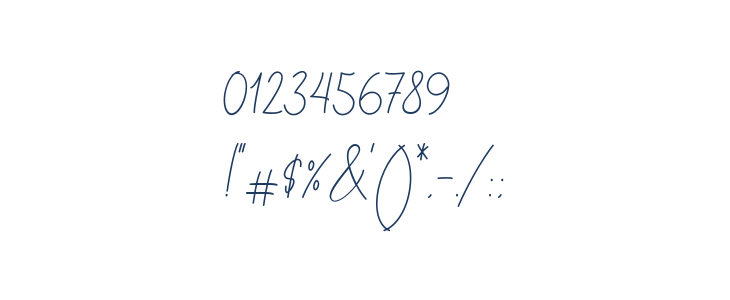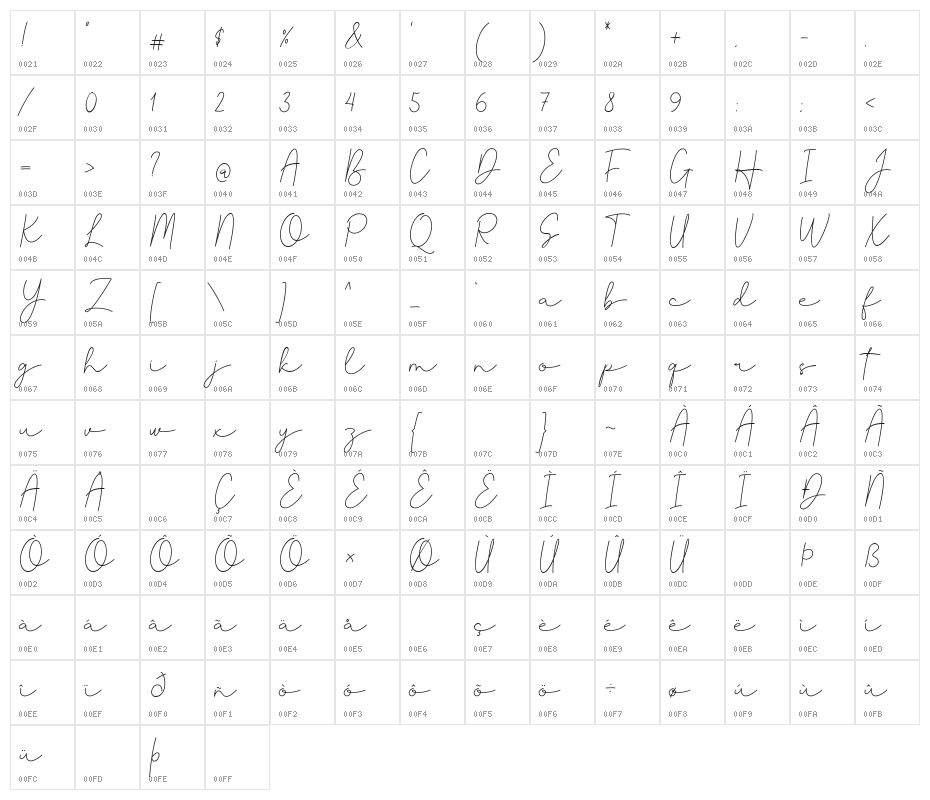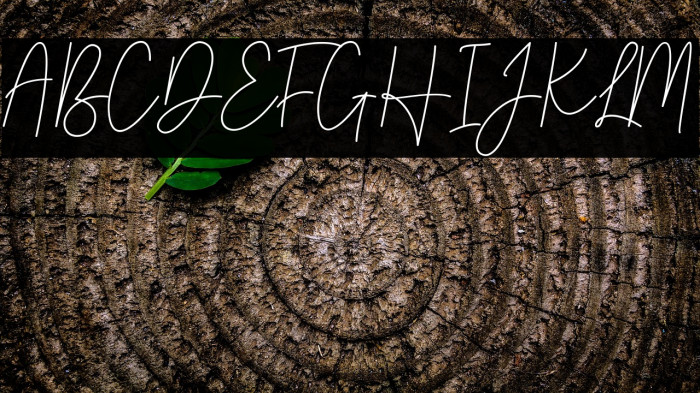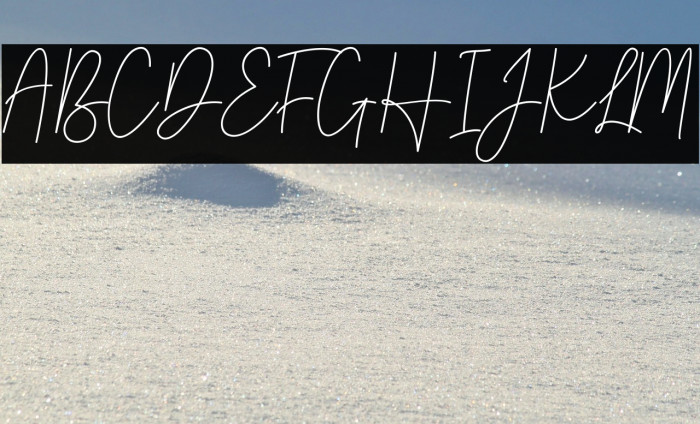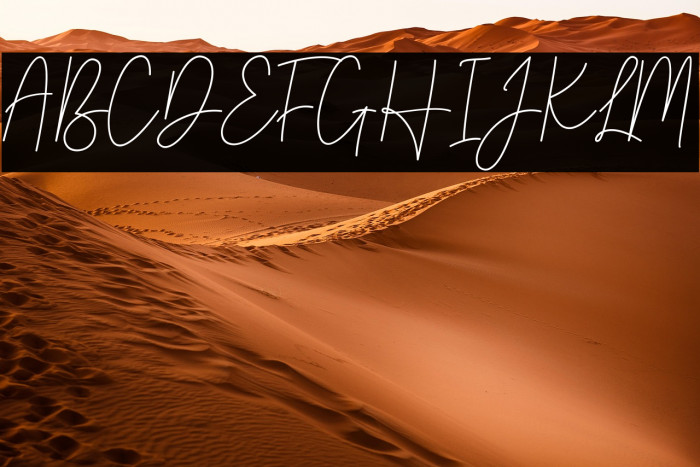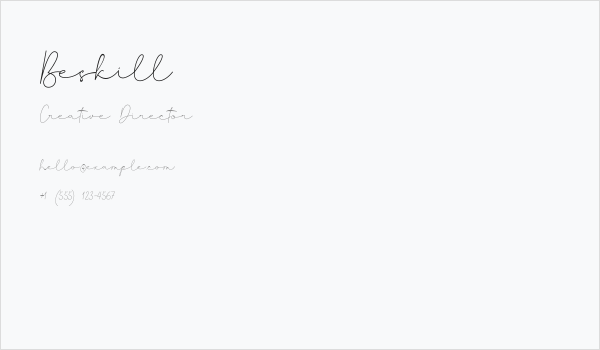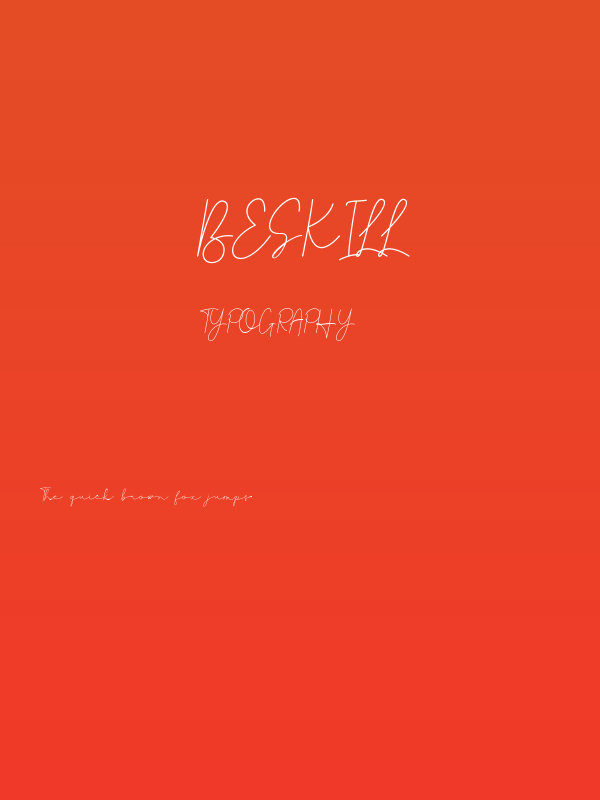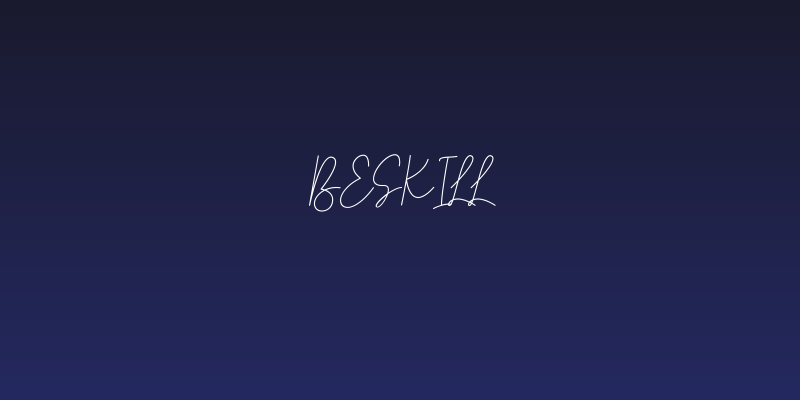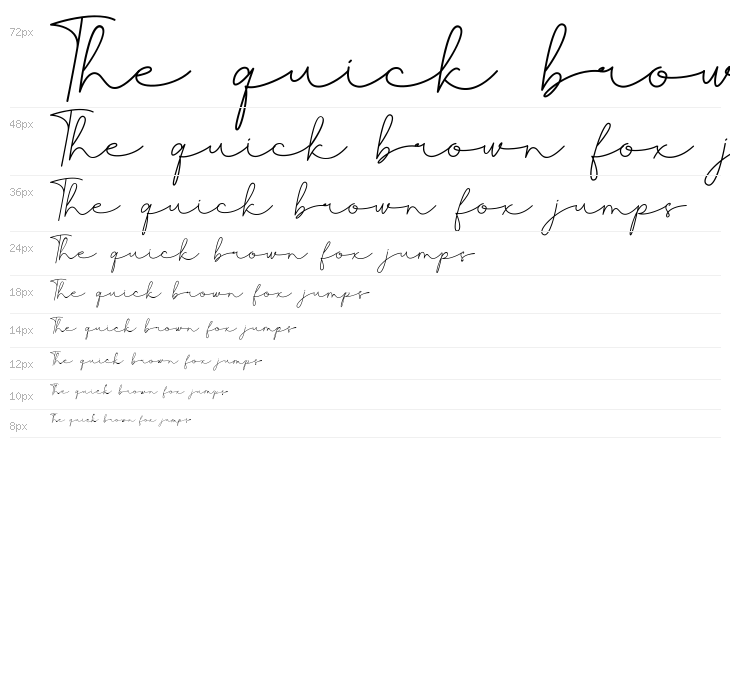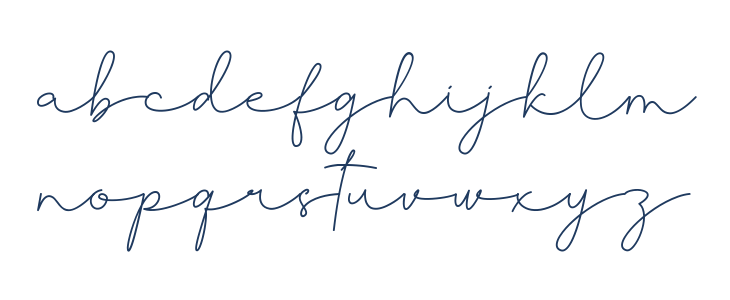
Beskill Font
Beskill Description
This font features a delicate and flowing script style, characterized by its elegant and fluid letterforms. The uppercase letters exhibit a graceful, slightly elongated appearance, while the lowercase letters maintain a consistent, cursive flow. The numerals are designed with a similar elegance, ensuring a cohesive look across all characters. The special characters complement the overall aesthetic, adding a touch of sophistication. The thin strokes and smooth curves give this font a refined and airy feel, making it suitable for projects that require a touch of elegance and style.
| Overall Style | Elegant |
| Use Case | Logos, Invitations, Decorative text |
| Proposed Projects | Ideal for wedding invitations, elegant branding, personal signatures, and decorative quotes. |